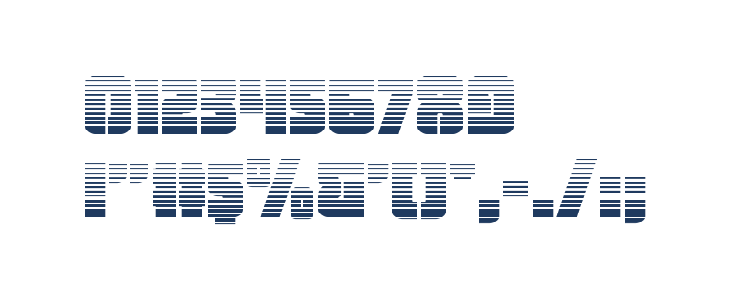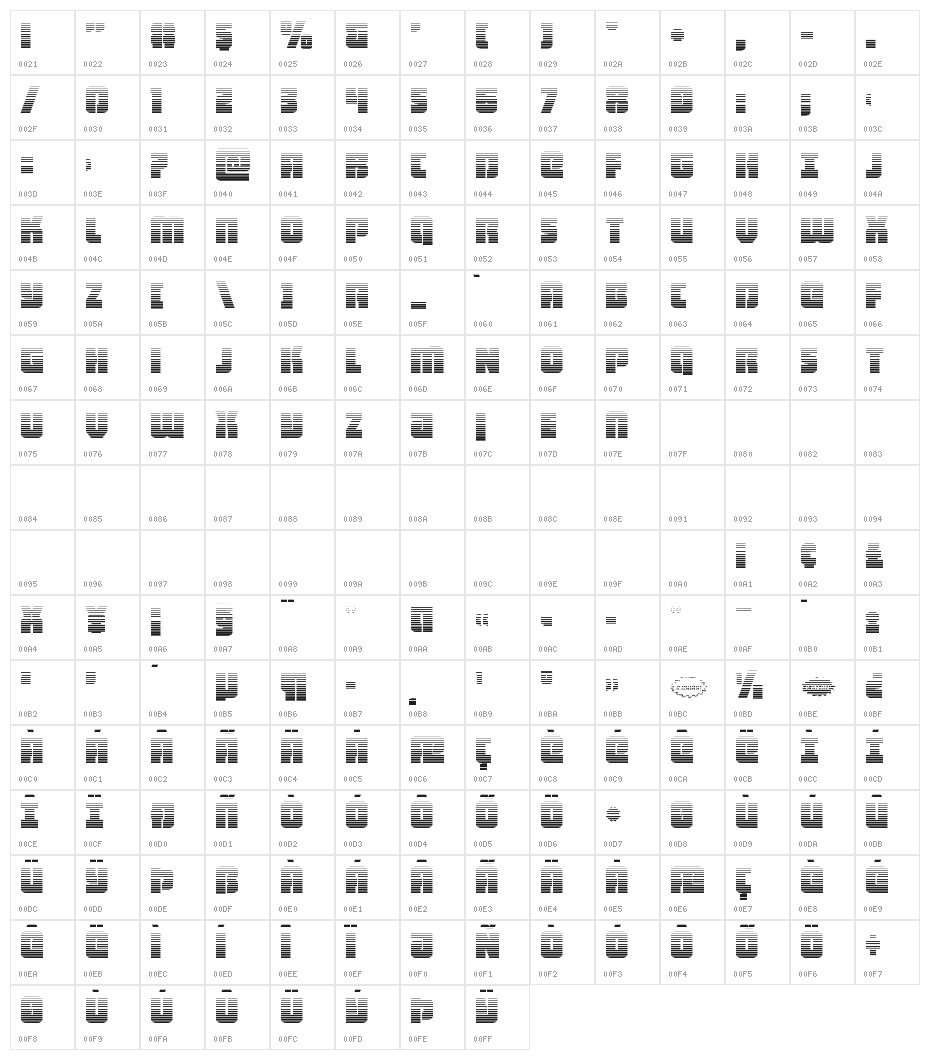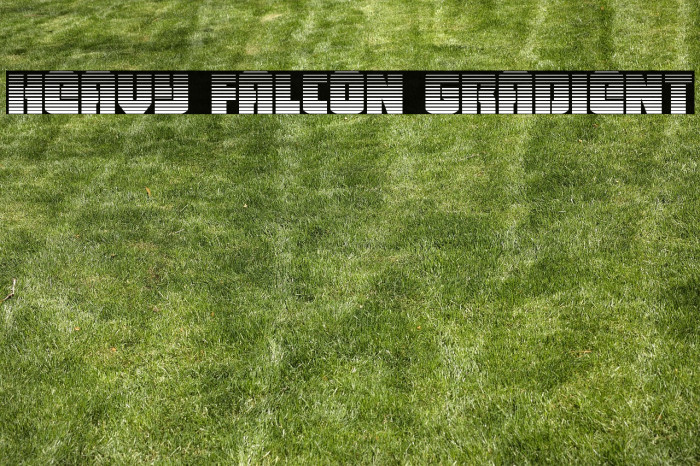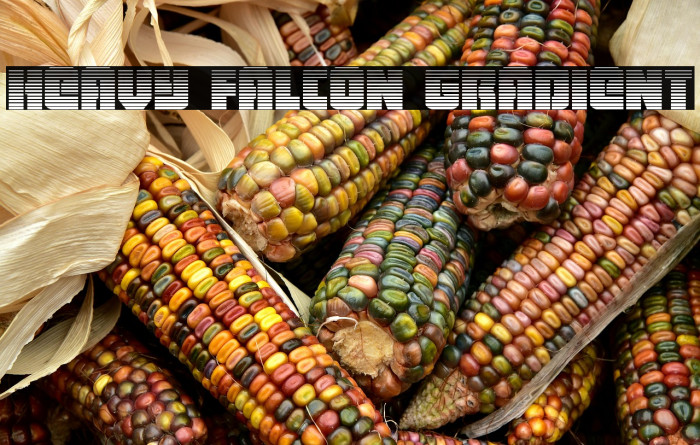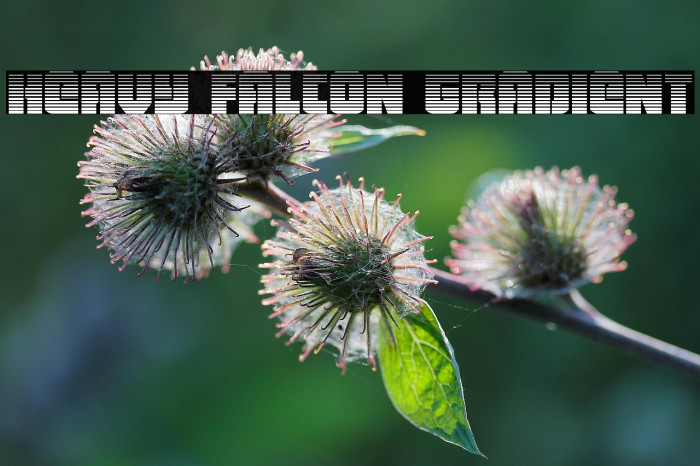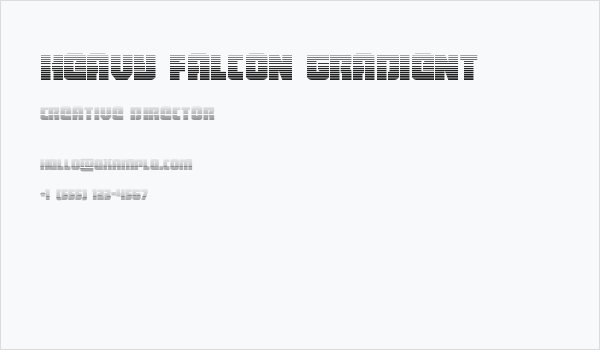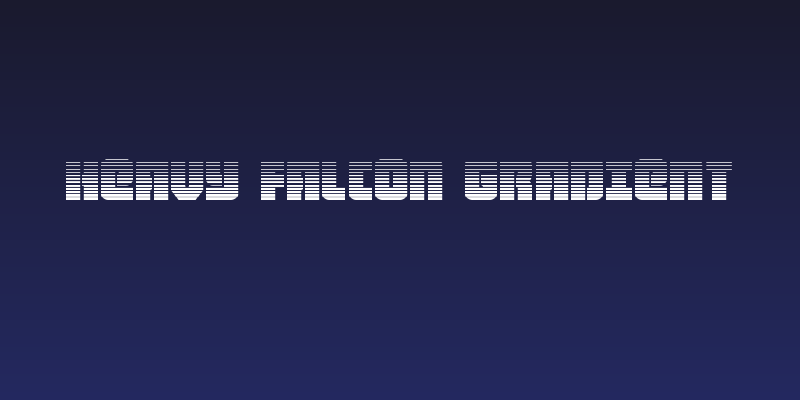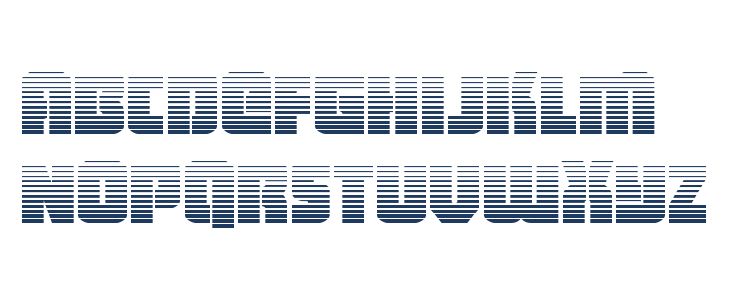
Heavy Falcon Gradient Font
Heavy Falcon Gradient Description
This font features a bold, modern design with a unique gradient effect created by horizontal lines that vary in thickness. The uppercase and lowercase letters, as well as numbers and special characters, are constructed with a consistent pattern that gives a sense of movement and depth. The style is highly decorative, making it ideal for eye-catching designs. The characters are wide and have a strong presence, suitable for projects that require a futuristic or tech-inspired aesthetic.
| Proposed Projects | Ideal for futuristic branding, tech-related posters, video game titles, and sci-fi themed events. |